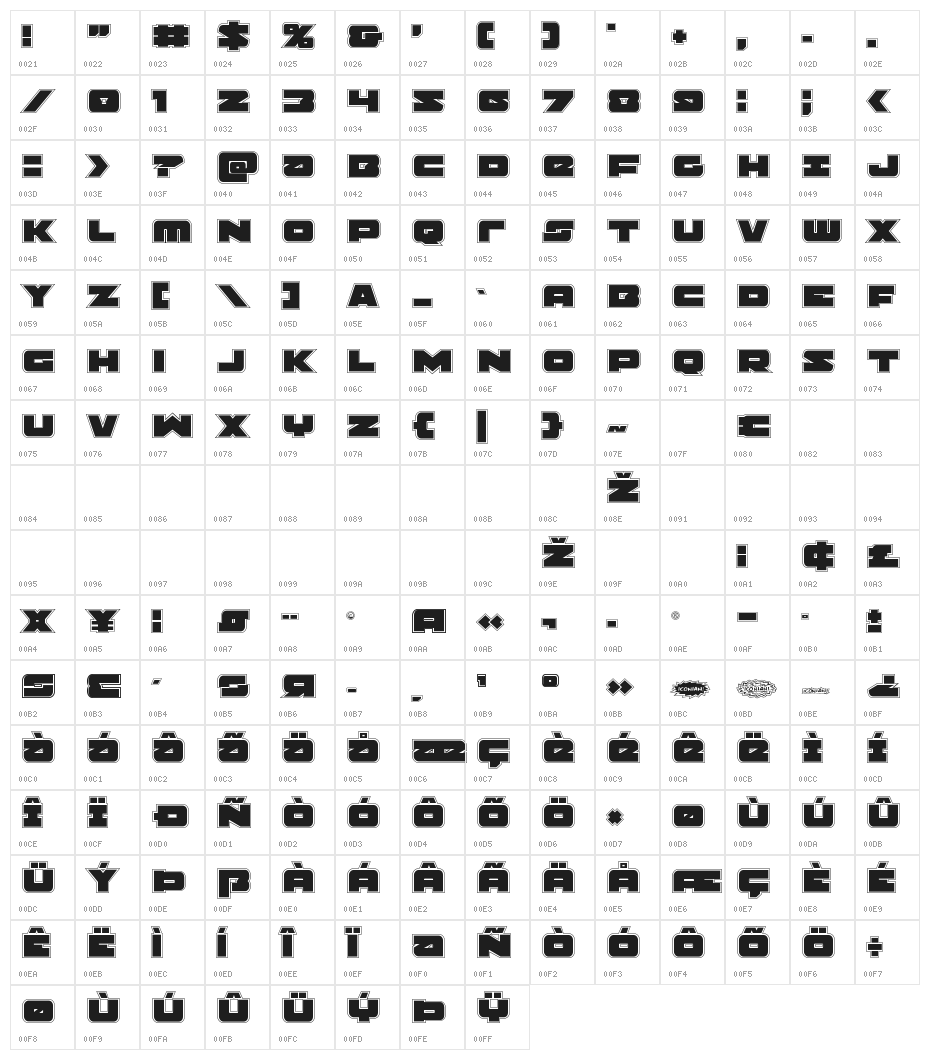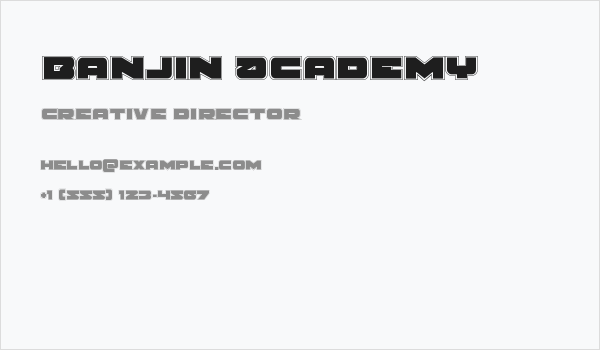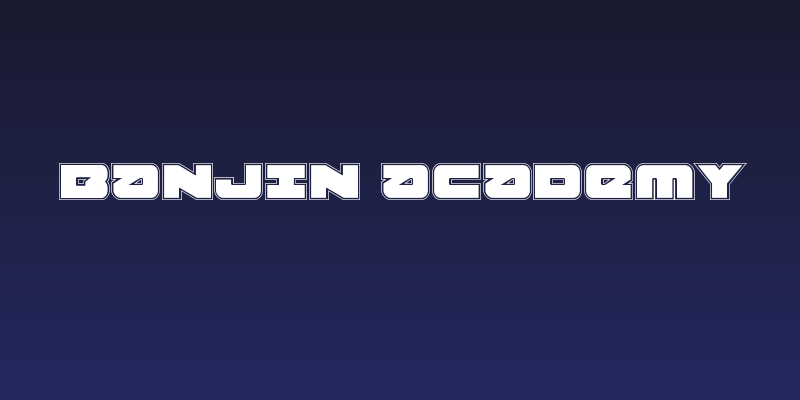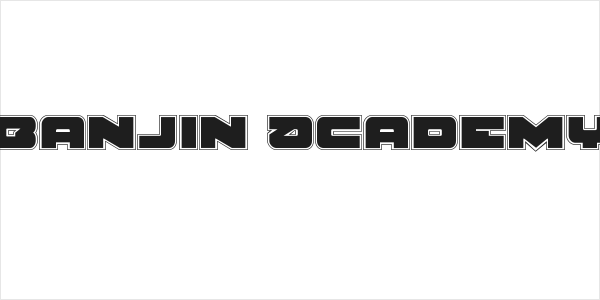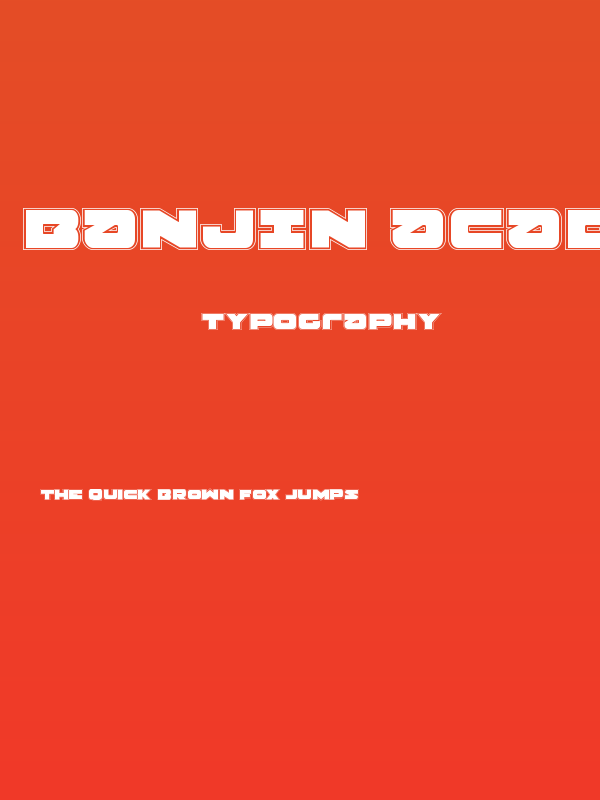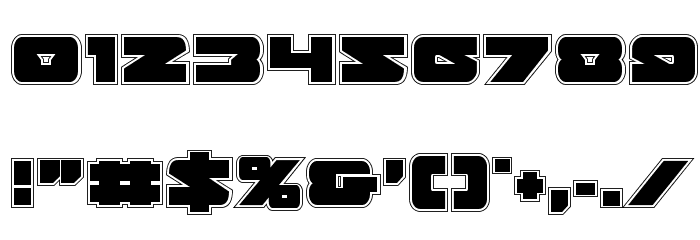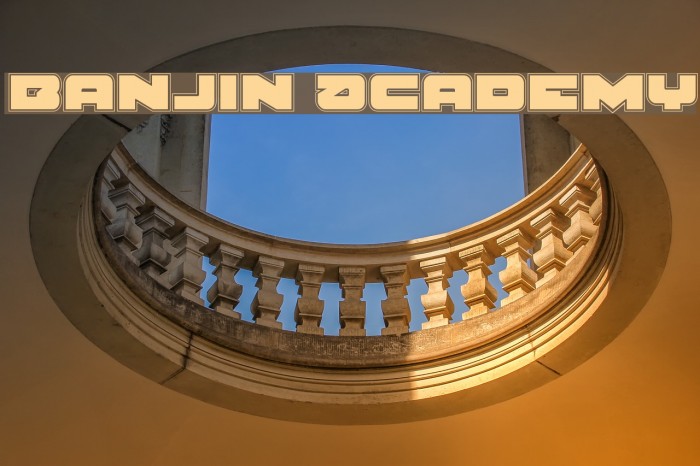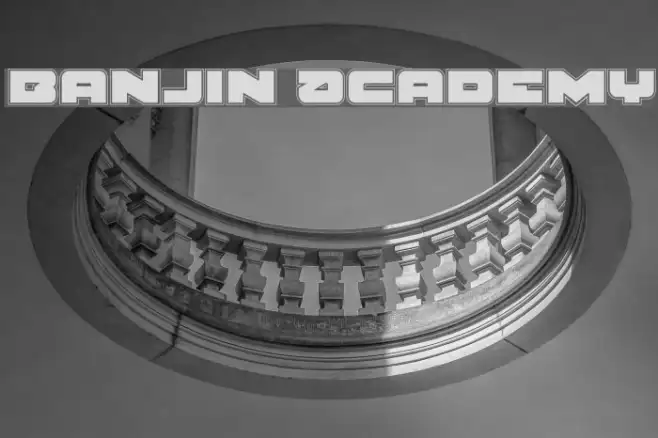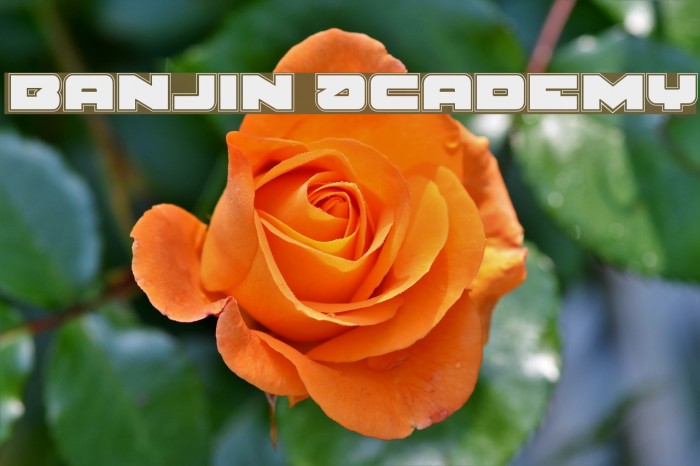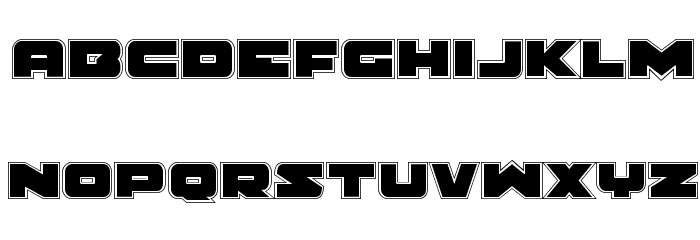
Banjin Academy Font
Banjin Academy Description
This font features a bold, geometric design with a strong presence. The characters are constructed with thick, block-like shapes that give a sense of stability and strength. Each letter is outlined, adding a layer of depth and making the characters stand out prominently. The font has a modern, futuristic feel, with angular cuts and sharp edges that contribute to its dynamic appearance. The uppercase and lowercase letters maintain a consistent style, while the numerals and special characters are designed to complement the overall aesthetic. This font is ideal for projects that require a bold and impactful visual statement.
| Proposed Projects | Ideal for branding, posters, video game graphics, and any project needing a strong visual impact. |